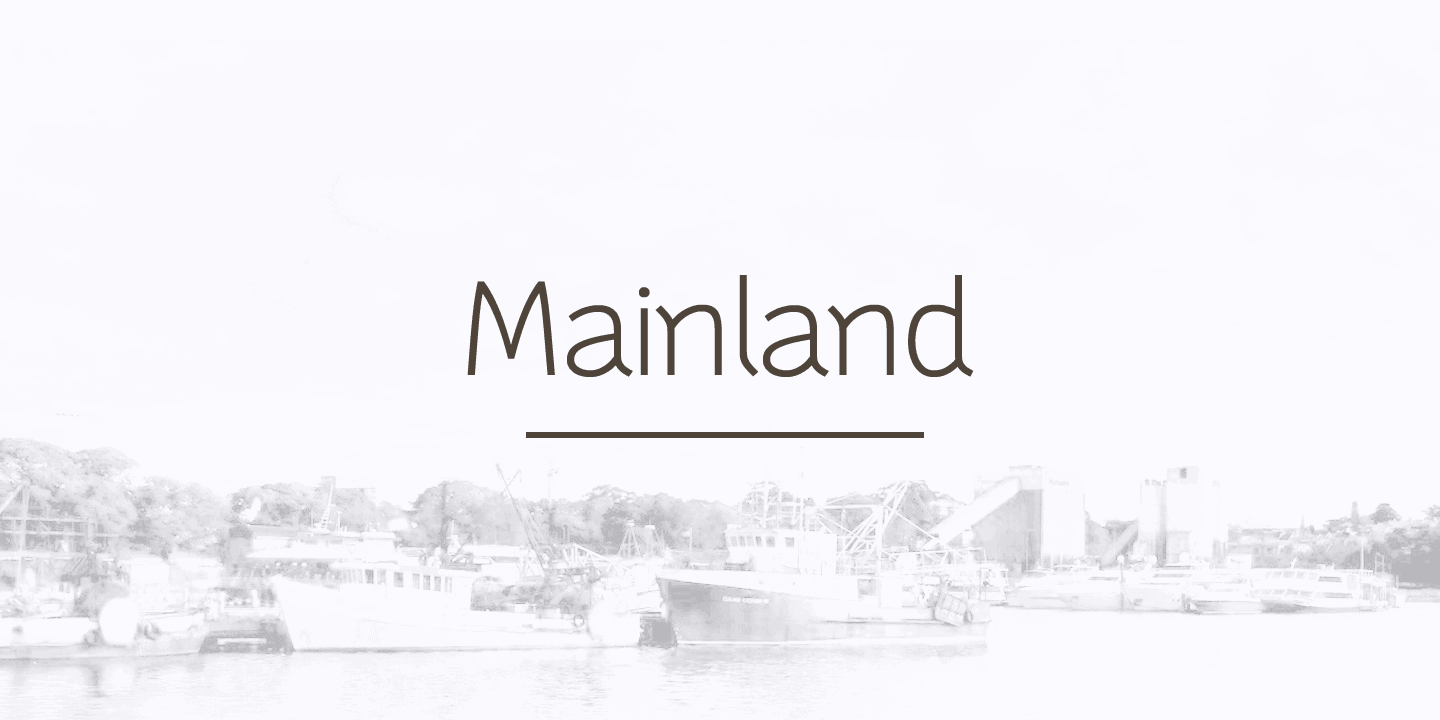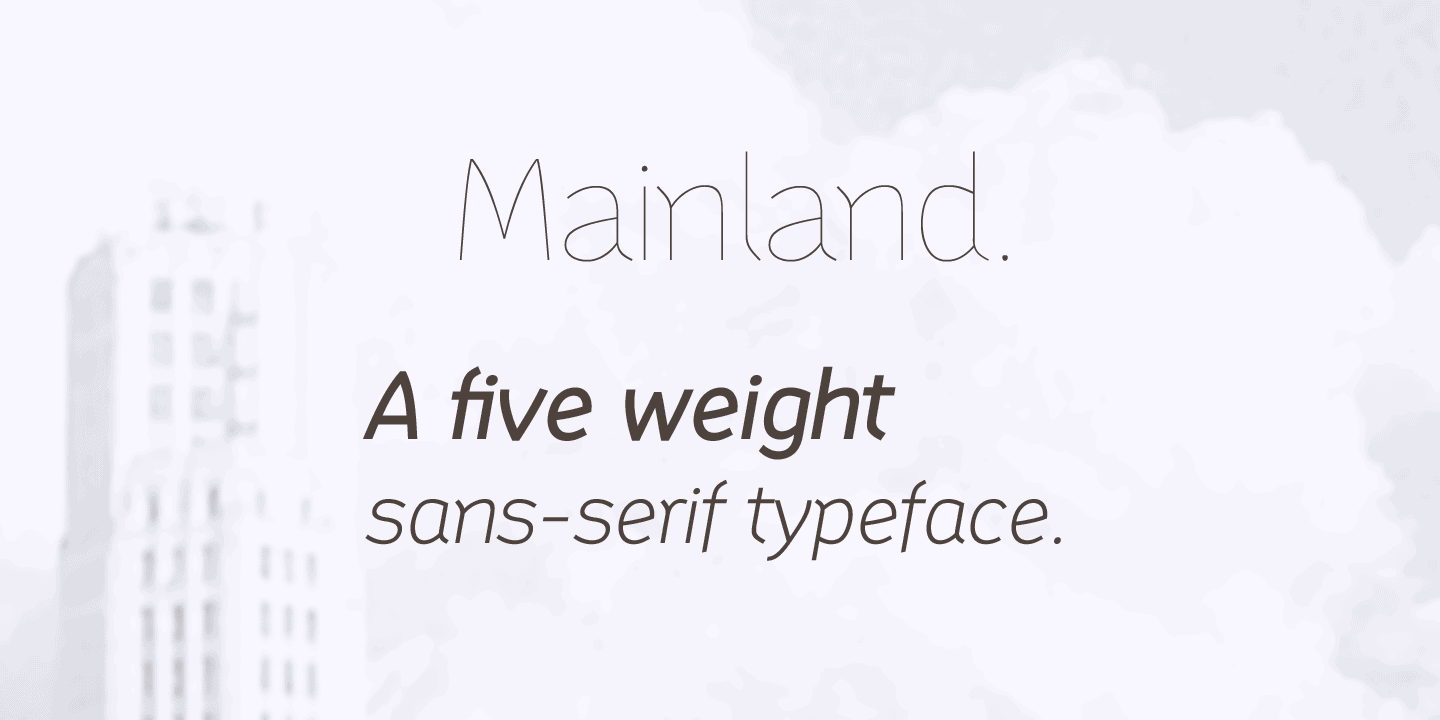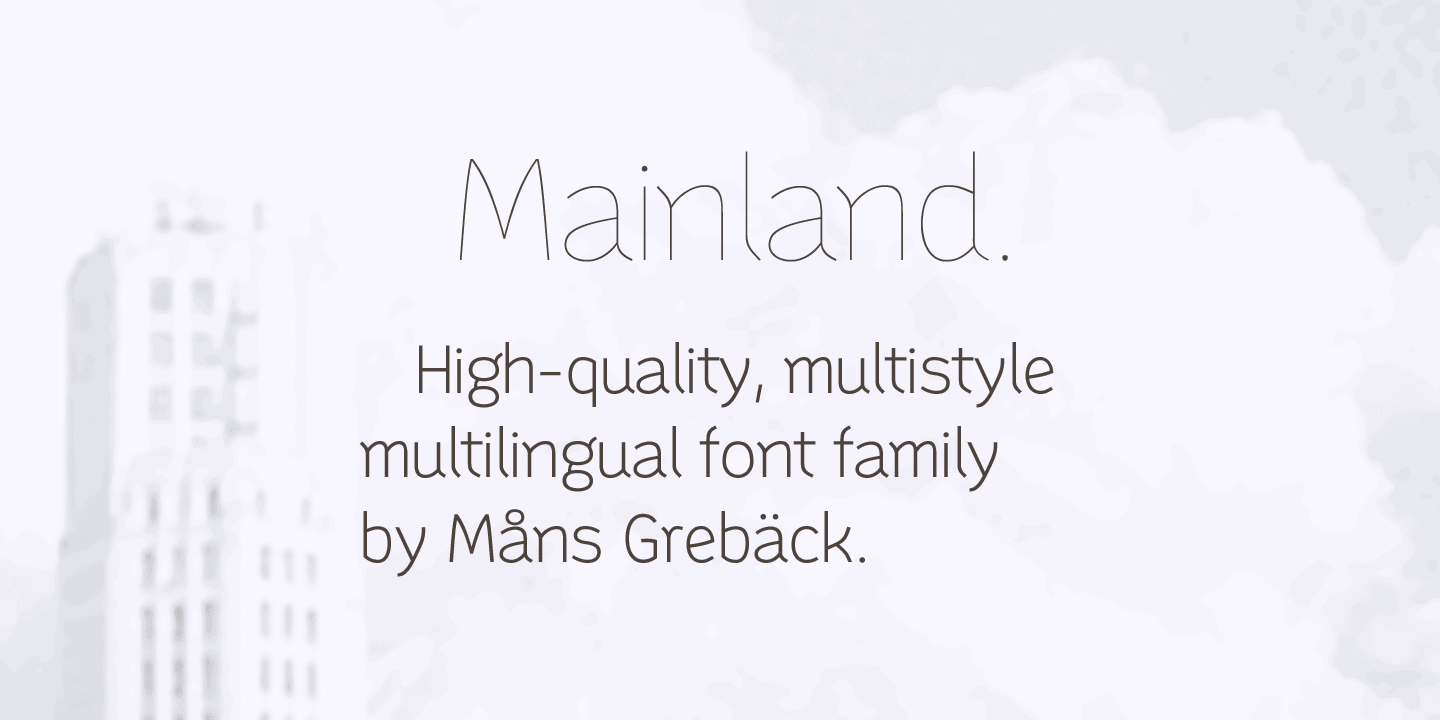
Mainland is a high-quality sans-serif typeface, drawn by Måns Grebäck.
The typeface family comes in five weights, from Thin to Black. In addition to that there are Italics, totaling 10 styles. Extensive language support makes the font possible to use for any European Latin based language.